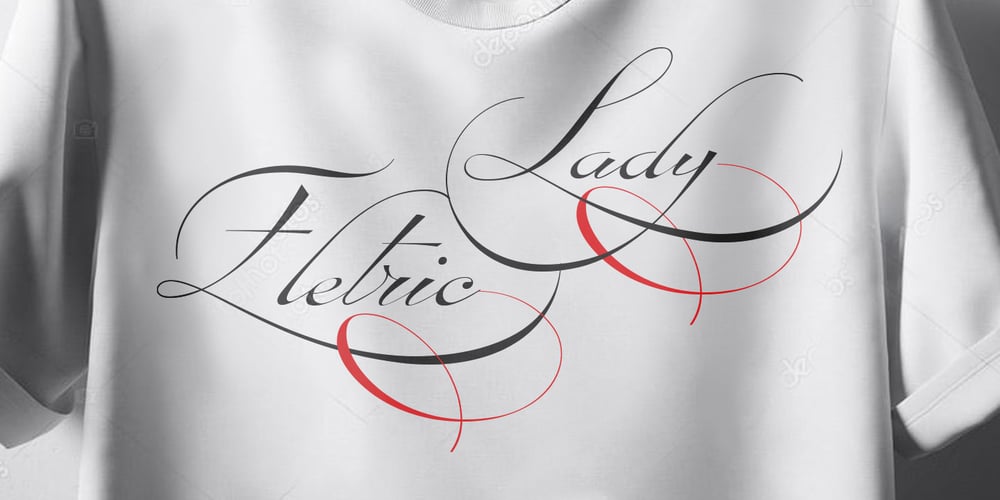
Eletric Lady
Eletric Lady font
Eletric Lady Font Family was designed by Antonio Vignali and published by RM&WD. Eletric Lady contains 4 styles and family package options. Electric Lady in a light script with a great amount of different possibilities. With Electric Lady font family you can to turn on various features (Ligatures, Stylistic Alternates, Contextual Alternates, Swashes, 3 completely different Stylistic sets) to auto swap out letter sets with alternate versions. – More than 3,000 glyphs – 100 different numbers shapes – 110 different ornaments In the Extra 2 style, you’ll find many different standalone words, kitchen icons, menu icons, swashes, and extra fun characters!